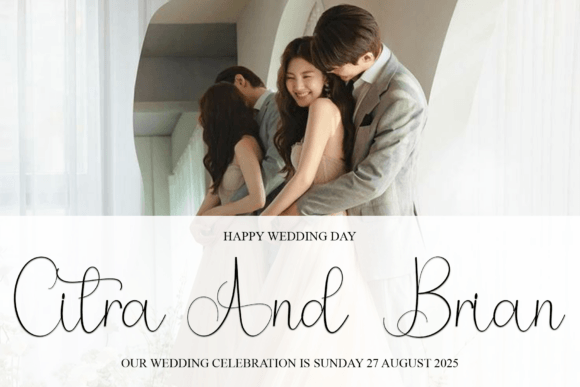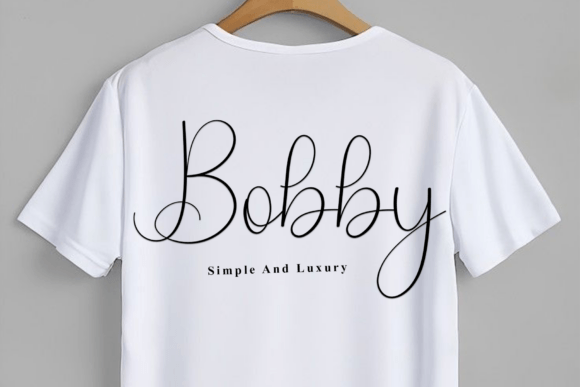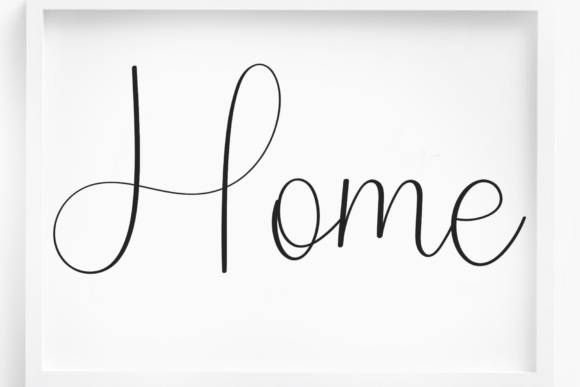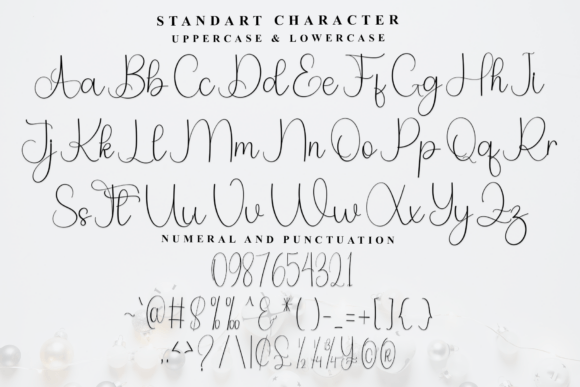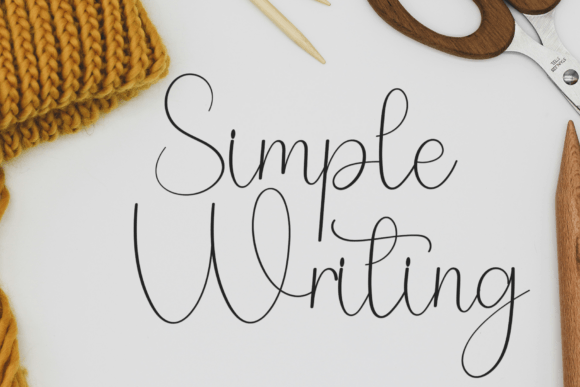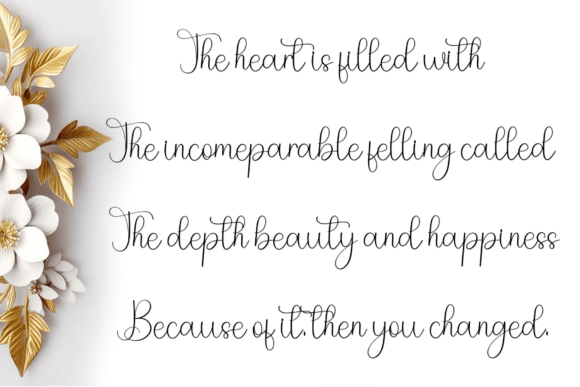
Hello California Font: A Festive and Merry Typeface for the Holiday Season
The holiday season is upon us, and with it comes the desire to create festive and merry designs that capture the spirit of the season. For designers and crafters looking to add a touch of enchantment to their projects, the Hello California font is a perfect choice. This decorative typeface is specifically designed to bring a cheerful and nostalgic ambiance to your words, making it ideal for greeting cards, gift tags, and holiday-themed projects.
What Makes Hello California Font So Special?
Hello California is a beautifully crafted font that boasts decorative elements and a whimsical flair, making it a standout from more traditional typefaces. Its unique design is inspired by the magic of the holiday season, evoking feelings of joy, wonder, and nostalgia. With its intricate details and elegant lines, this font is sure to add a touch of sophistication and charm to any design.
Whether you’re a designer looking to create festive holiday cards, or a crafter seeking to add a personal touch to your gift tags, Hello California font is the perfect choice. Its versatility and charm make it suitable for a wide range of projects, from:
- Gift tags and wrapping paper
- Holiday-themed posters and flyers
- Crafting projects, such as scrapbooking and DIY decorations
One of the best features of Hello California font is that it’s PUA (Private Use Area) encoded. This means that you can access all of the amazing glyphs and ligatures with ease, giving you even more creative freedom to experiment with your designs. With PUA encoding, you can:
- Easily access and use the font’s decorative elements
- Insert special characters and glyphs into your designs
- Create unique and intricate designs with ease
Bringing a Cheerful and Nostalgic Ambiance to Your Words
Hello California font is designed to evoke a sense of nostalgia and cheerfulness, making it perfect for holiday-themed projects. Its whimsical design and decorative elements work together to create a sense of wonder and enchantment, transporting your audience to a magical world of festive fun. Whether you’re looking to create a vintage-inspired design or a modern, bold statement, this font is sure to deliver.
Why Choose Hello California Font?
With so many fonts available, why choose Hello California font for your holiday-themed projects? Here are just a few reasons:
- Unique and decorative design that’s sure to stand out
- Perfect for a wide range of holiday-themed projects
- Easily pairs with other fonts for a customized look
- Supports multiple languages and characters